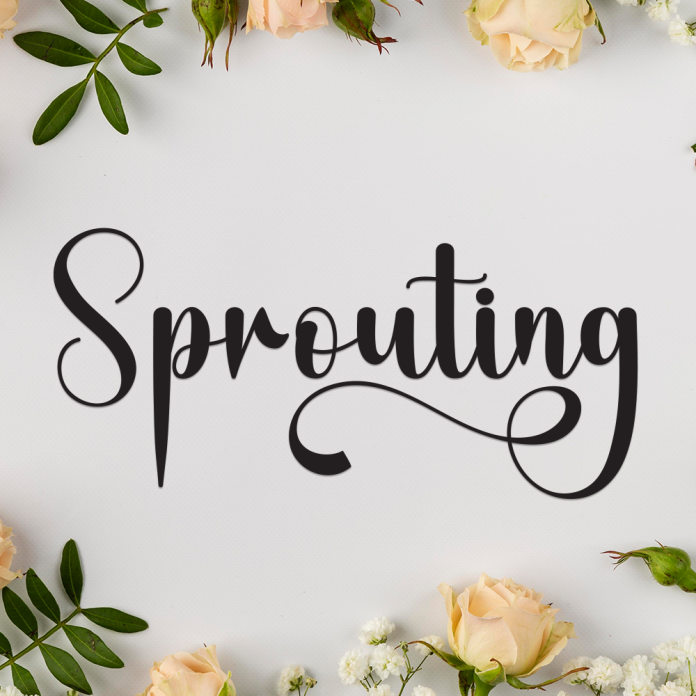
Sprouting is a lively and playful handwriting font inspired by nature and growth. With its bouncy letters and organic flow, this font radiates positivity and creativity, just like a new sprout breaking through the soil.
Perfect for children's books, eco-friendly branding, quotes, social media graphics, and DIY crafts, Sprouting brings a touch of whimsy and warmth to every project.